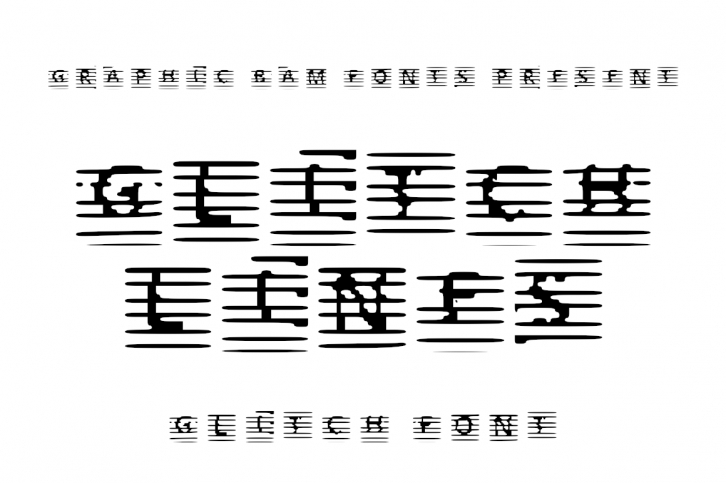
Glitch Lines is a glitched cool display typeface that comes in both uppercase and lowercase versions. Its distorted feel makes it an ideal font for any hacker, web nerd or glitch art lover! Add it confidently to your projects, and you will love the results.